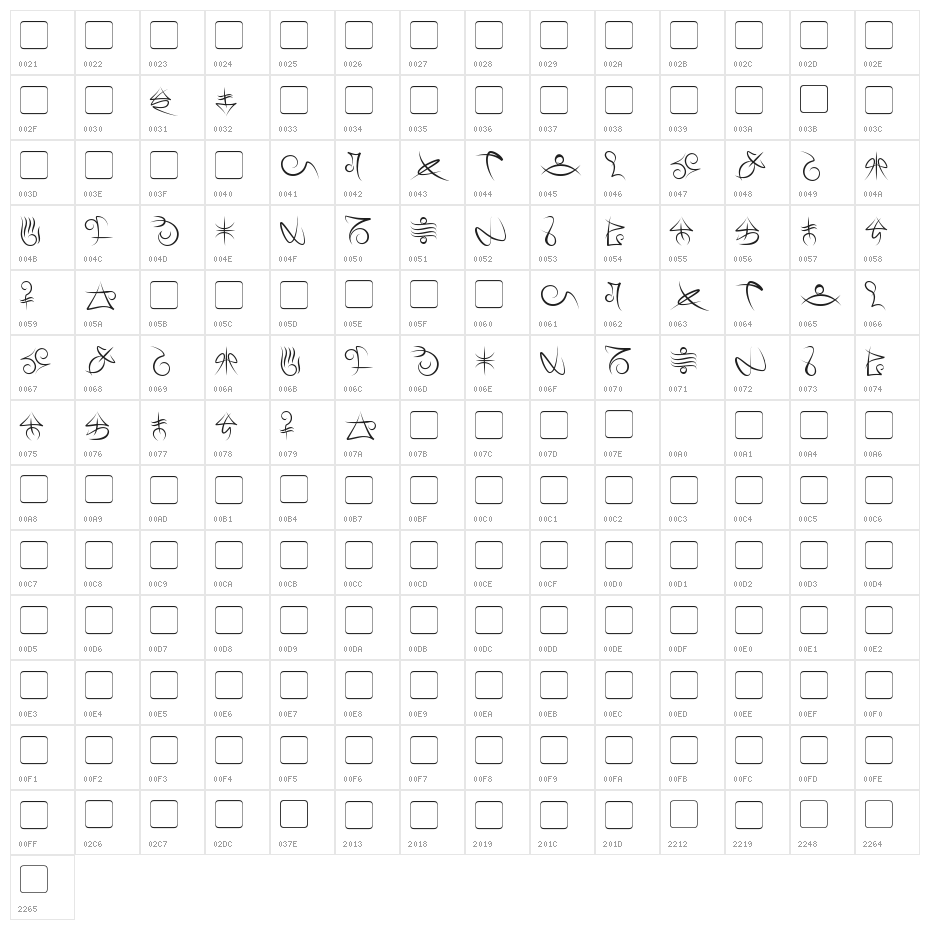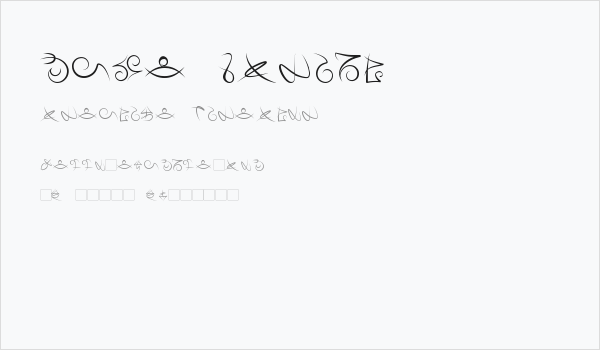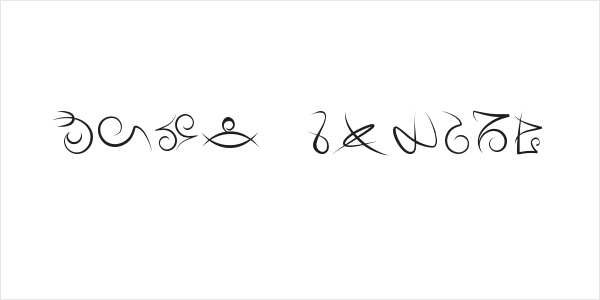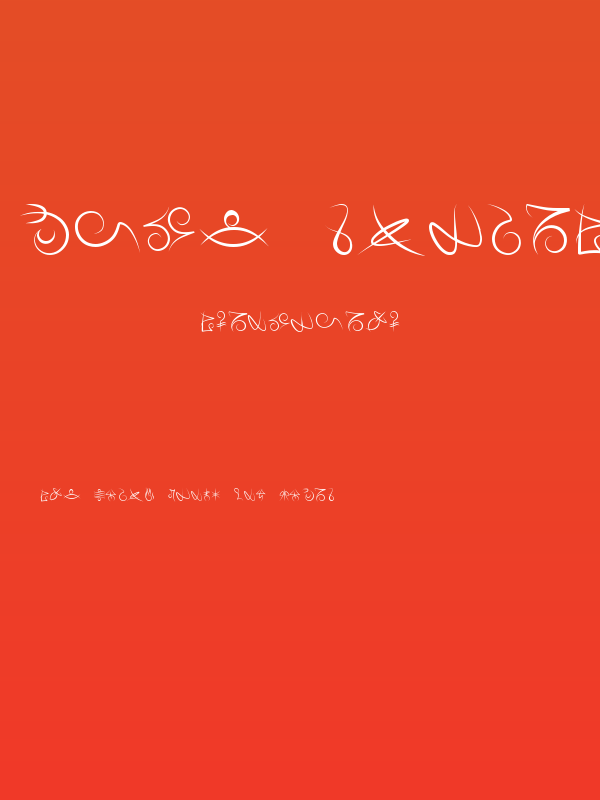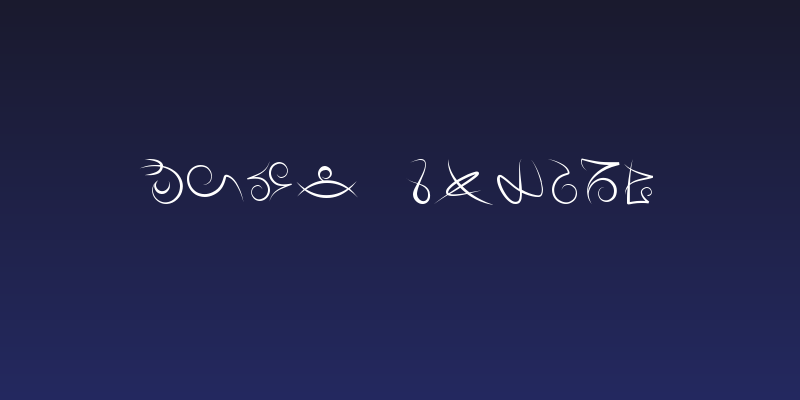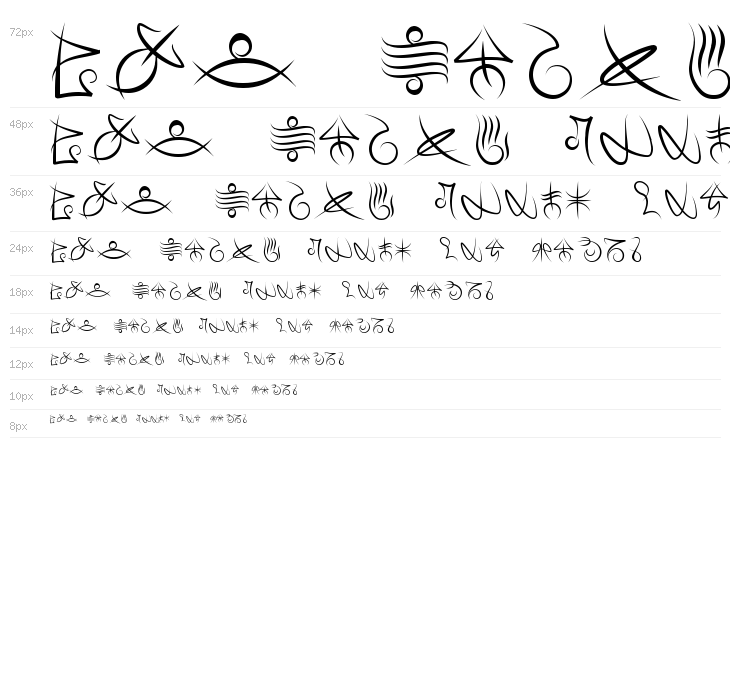
Mage Script Font
Mage Script Description
This font features an intricate and mystical design, reminiscent of ancient scripts or magical runes. Each character is crafted with flowing lines and curves, creating a sense of movement and energy. The strokes vary in thickness, adding a dynamic and enchanting quality to the text. The overall appearance is highly decorative, making it suitable for fantasy-themed projects or artistic endeavors. The characters are unique and may not correspond directly to standard alphabetic or numeric symbols, suggesting a use in creative or fictional contexts.
Overall StyleMystical, Enigmatic, Artistic
Use CaseLogos, Artistic projects, Fantasy themes
Proposed ProjectsIdeal for fantasy book covers, game design, mystical artwork, or themed event invitations.